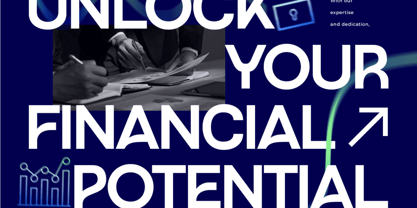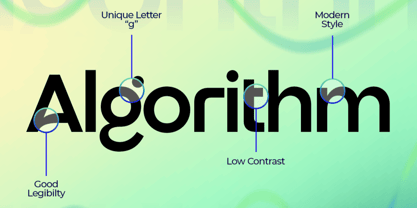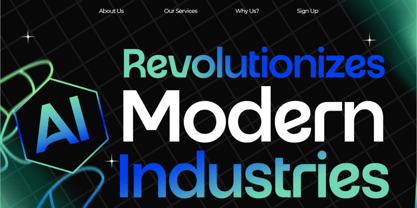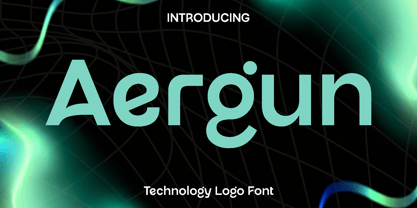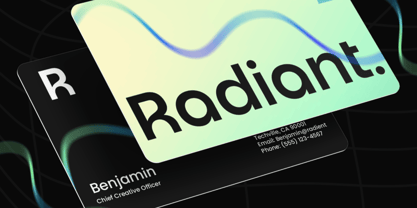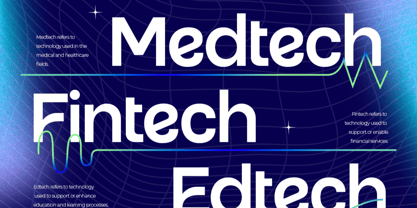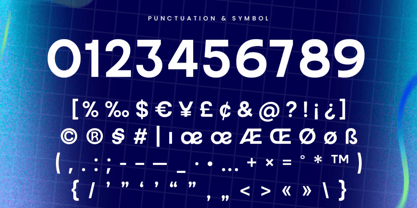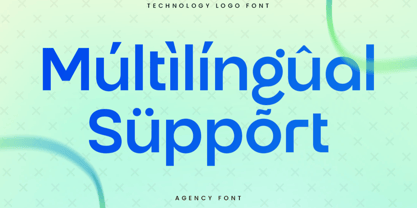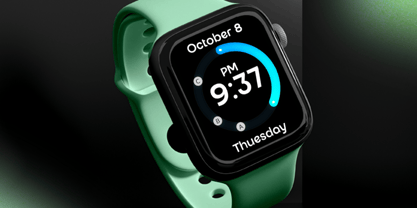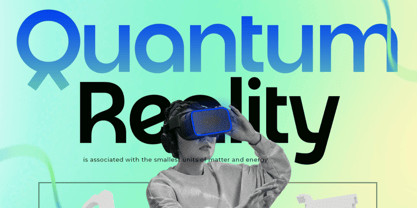
Aergun
by Only Fonts
The Aergun Font Family was designed by Olivia Love and published by Only Fonts. Aergun contains 1 styles. More about this family
Aergun – Technology Logo Font Aergun is a modern, technology-driven font designed to infuse clarity, precision, and innovation into your design projects. Inspired by the rapidly evolving landscape of digital products, startups, and futuristic branding, Aergun showcases clean lines and sharp details that establish a strong and professional visual identity. Each character is meticulously crafted to embody confidence, reliability, and forward-thinking aesthetics. This font excels in projects that require a sleek and impactful presence. Aergun is ideal for logos, tech startups, SaaS platforms, websites, mobile apps, and corporate branding. Its balanced structure ensures excellent readability while maintaining a bold and distinctive personality, making it perfect for both headlines and identity systems. Aergun conveys a modern, efficient, and highly adaptable feel. Whether you are building a brand from scratch or refreshing an existing identity, this font effectively communicates innovation and trust. Its versatile design allows it to integrate seamlessly across digital interfaces and print materials, providing your projects with a cohesive and polished appearance. Designed for creators who appreciate simplicity with character, Aergun transforms ideas into powerful visual statements. It offers a futuristic edge without sacrificing professionalism, making it a dependable choice for designers in technology, business, and creative industries. Aergun Technology Logo Font Features: • Unique characters ready • Punctuation, numbers, and symbols • Uppercase and lowercase • Multilingual support • OpenType features
Designers: Olivia Love
Current Foundry: Only Fonts